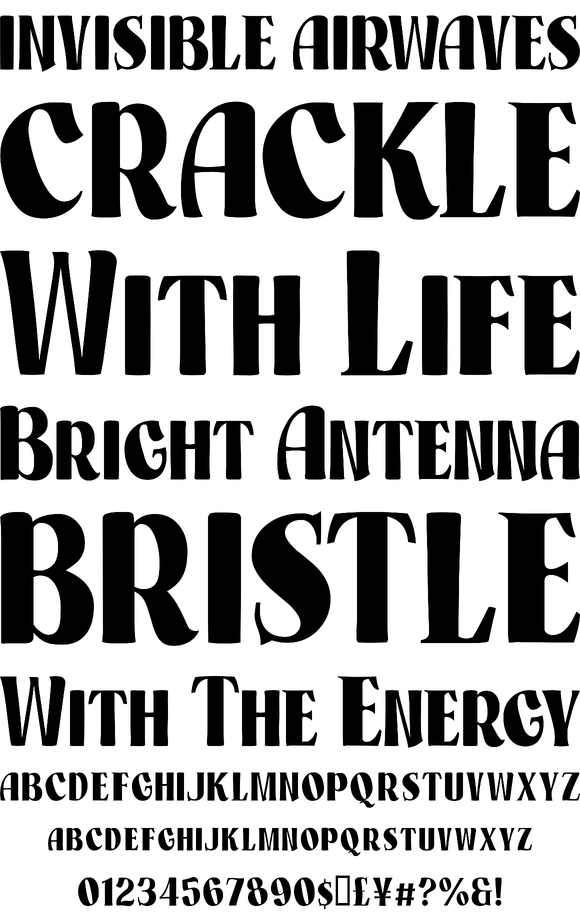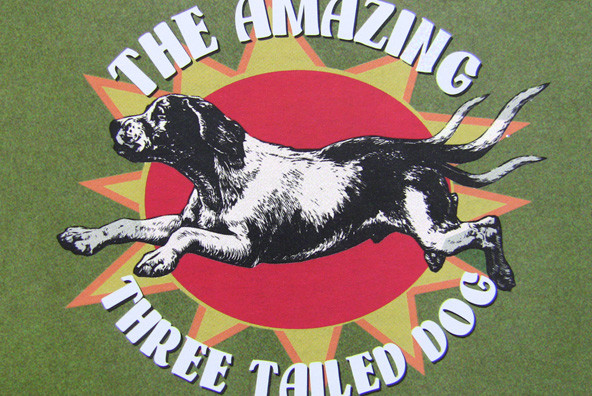
Freakshow
Foundry: TypeArt
A curvy little number resembling a typestyle found on old circus banners.
Each font in the Freakshow™ family has a full character set of 232+ letterforms, with all characters designed in the style of the font.